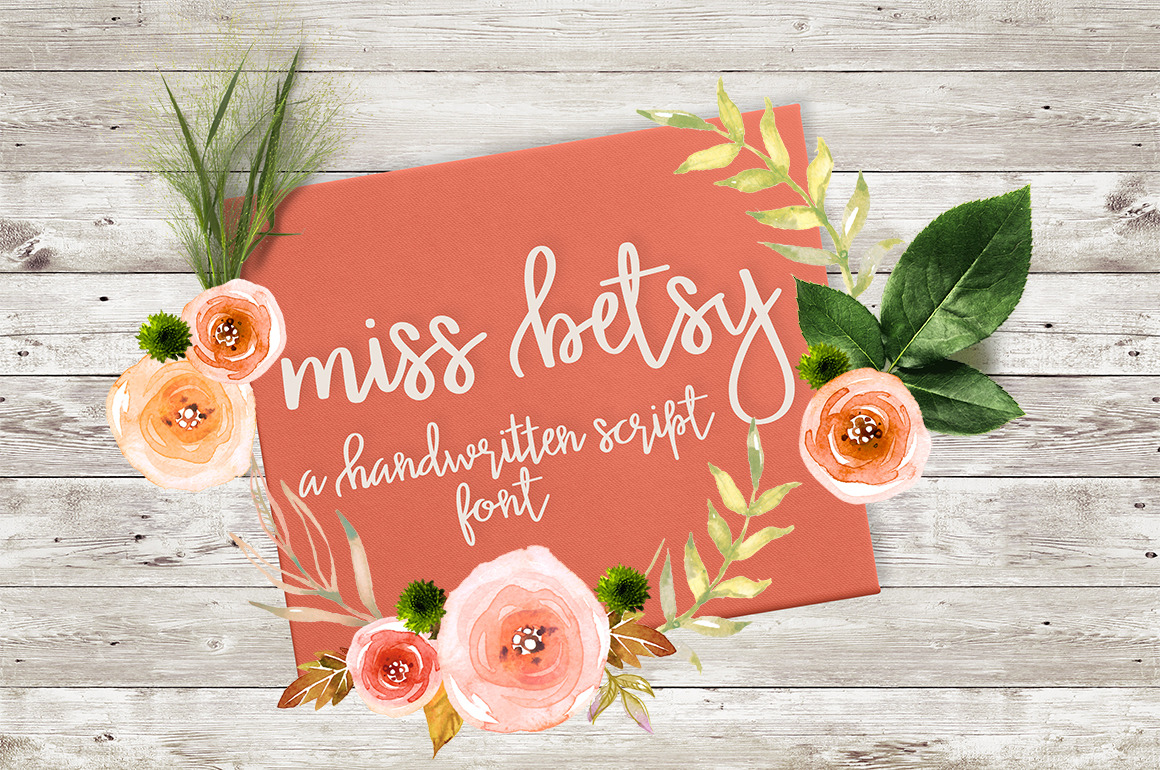
Miss Betsy Font
A pretty, handwritten script font. Perfect for greeting cards, stationary, scrapbooking, prints and more! This font includes some initial characters, standard ligatures, stylistic alternatives, and discretionary ligatures. Includes numbers and some punctuation.